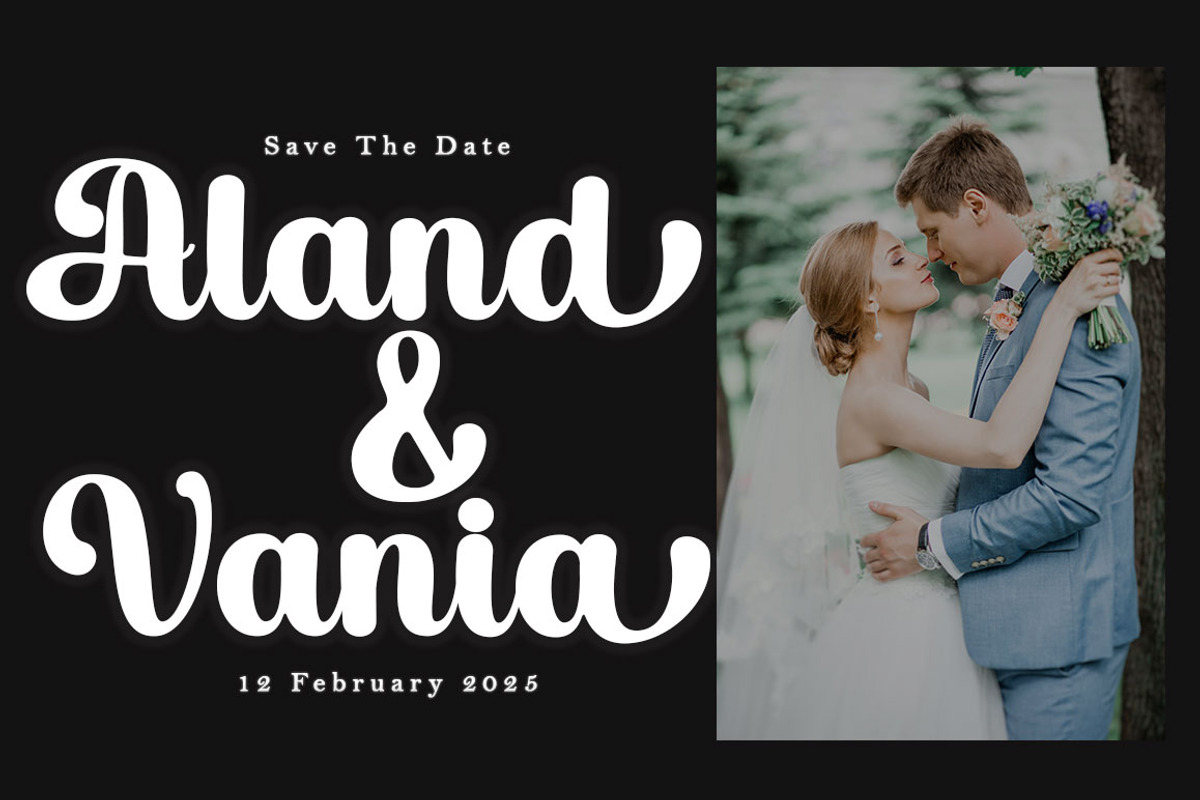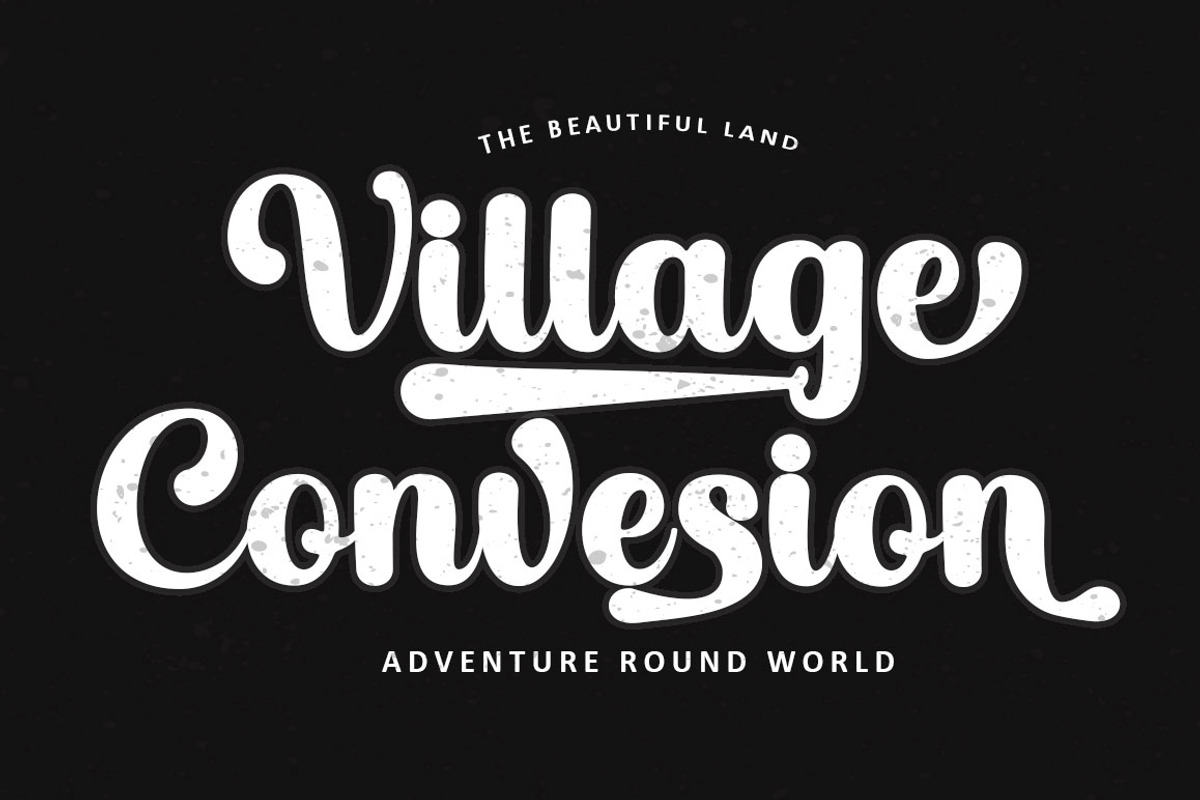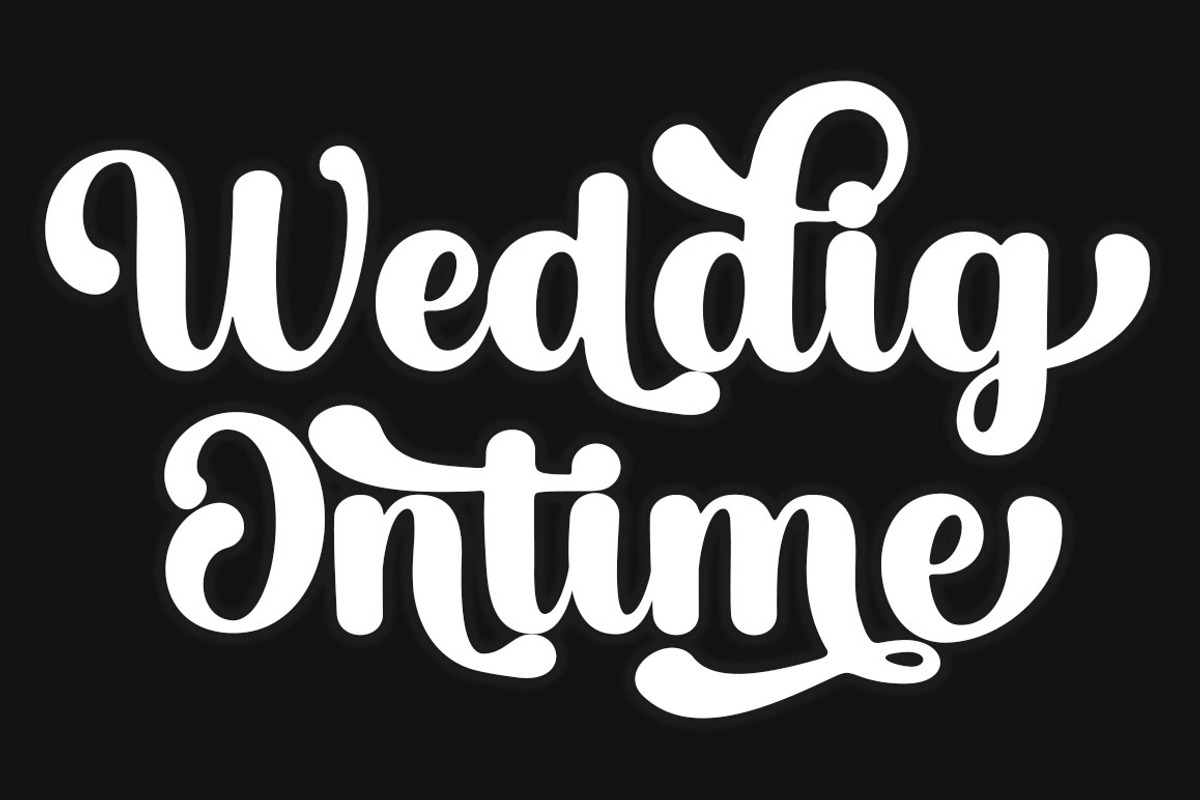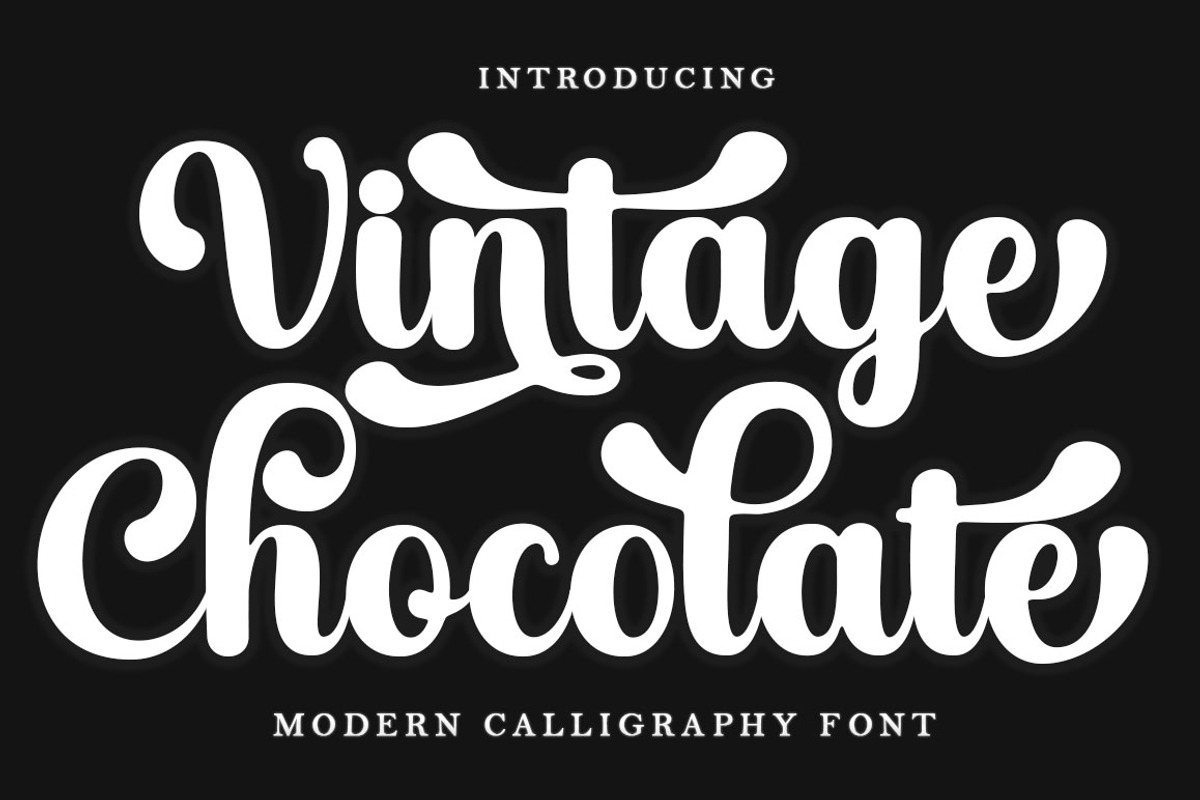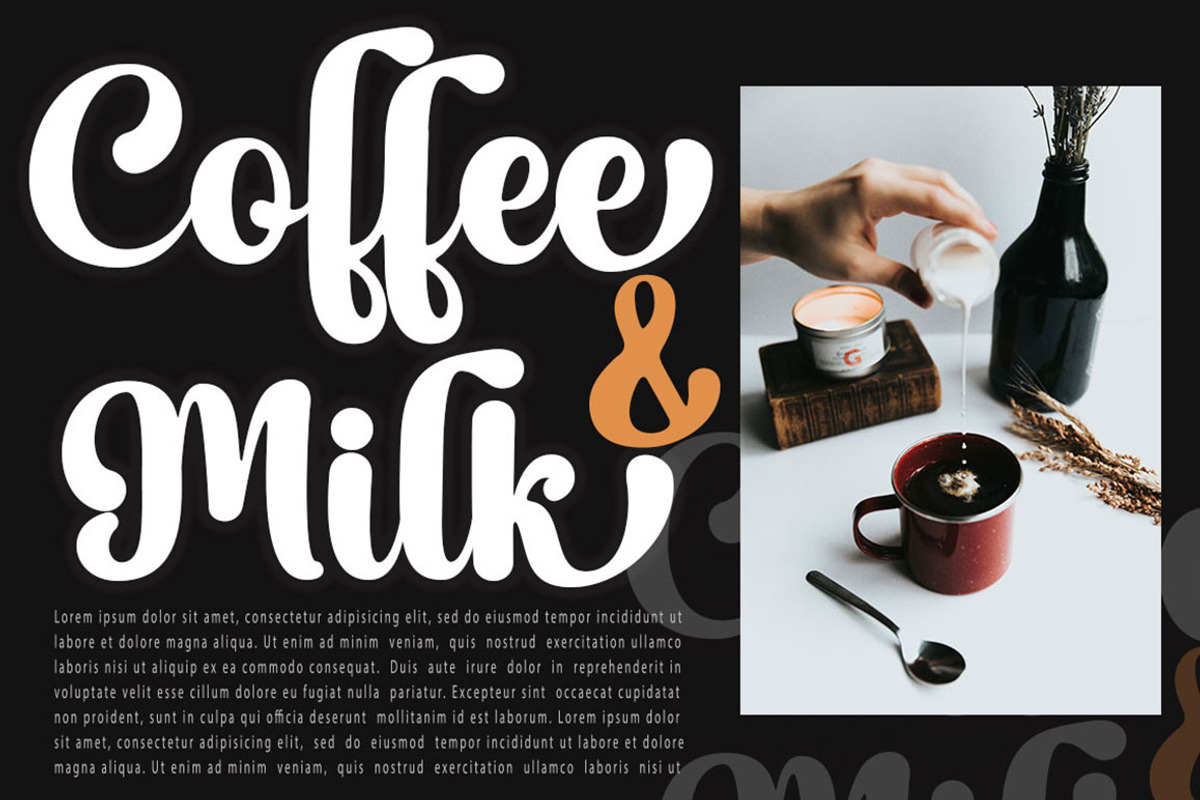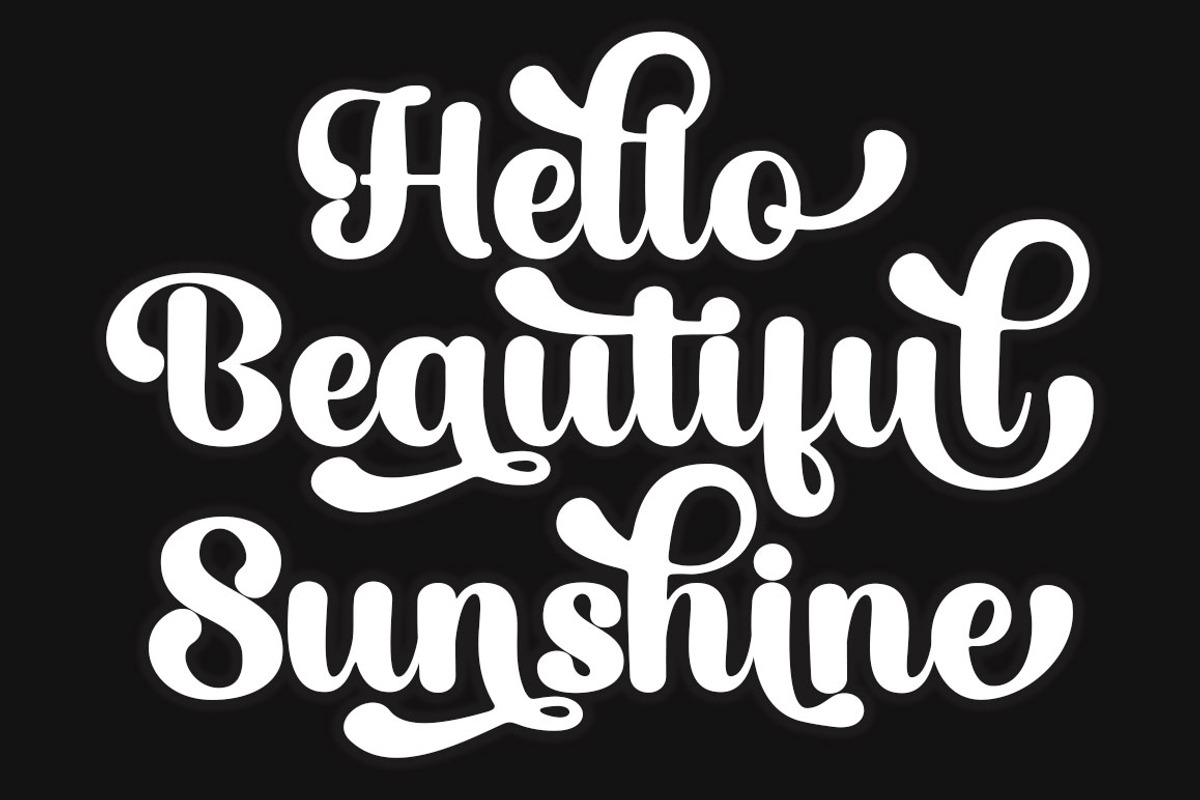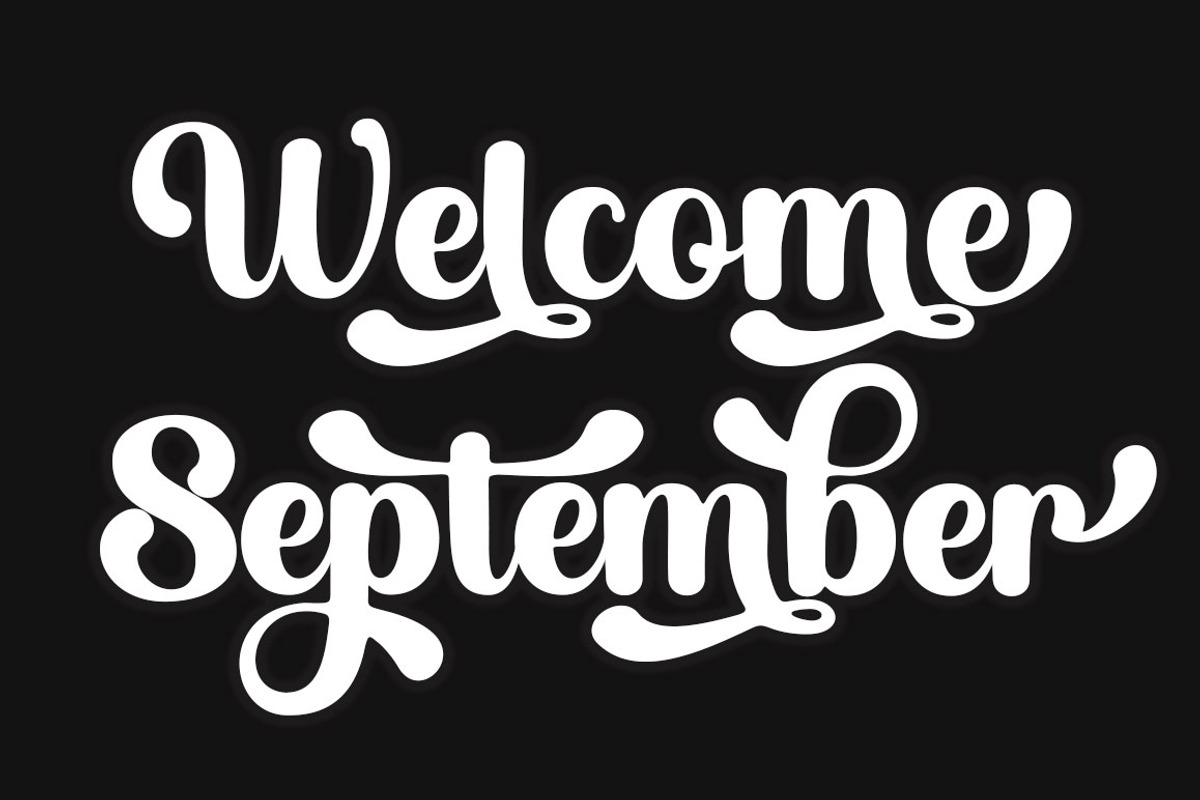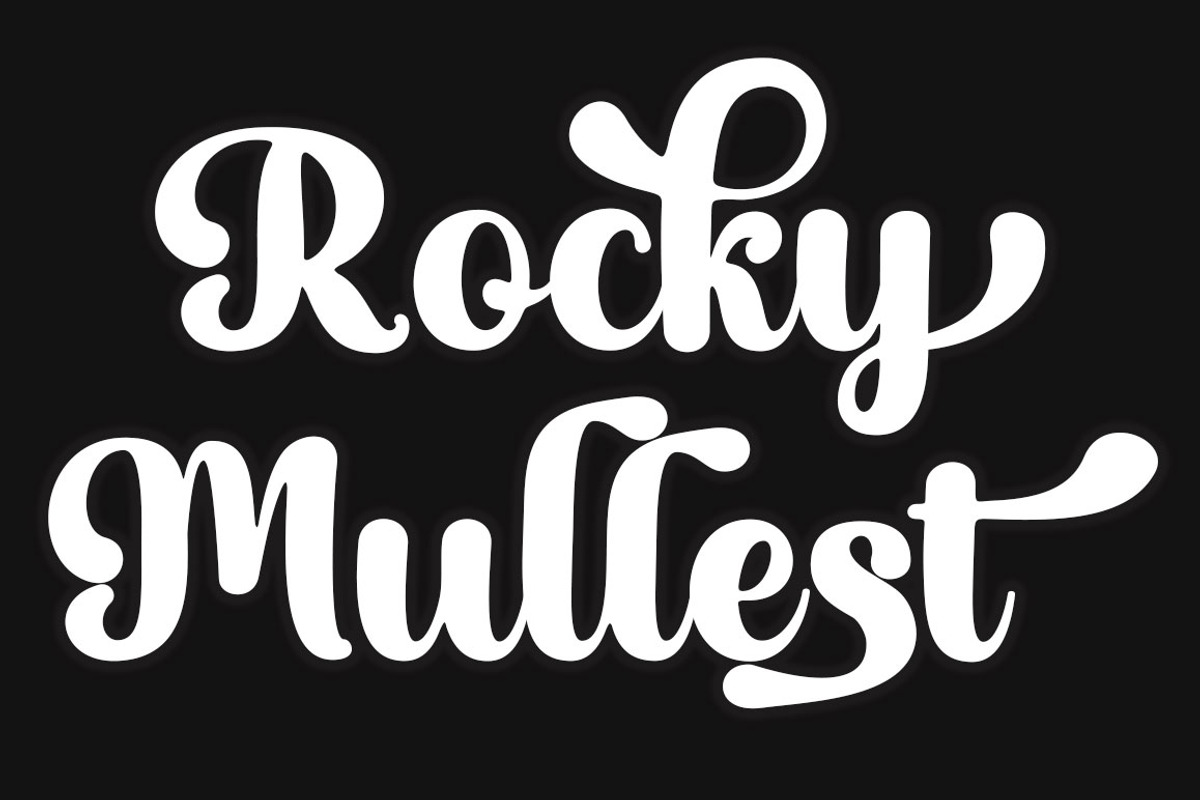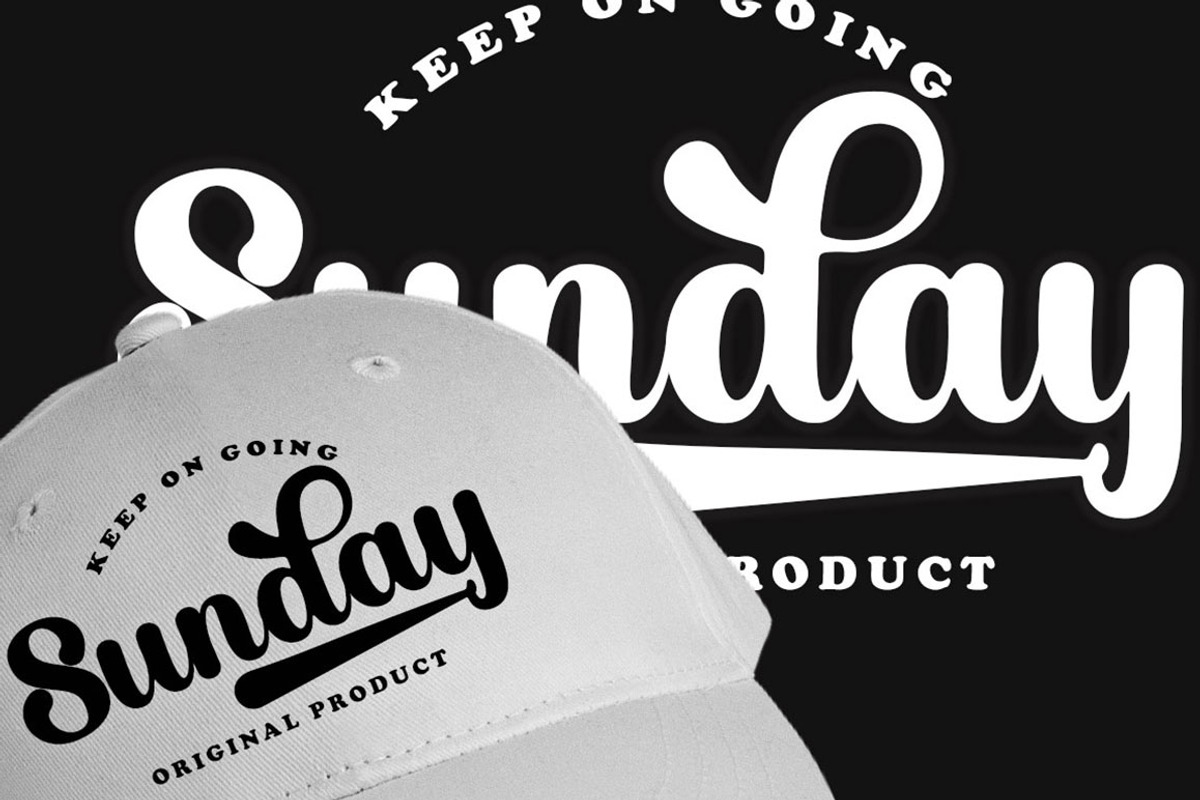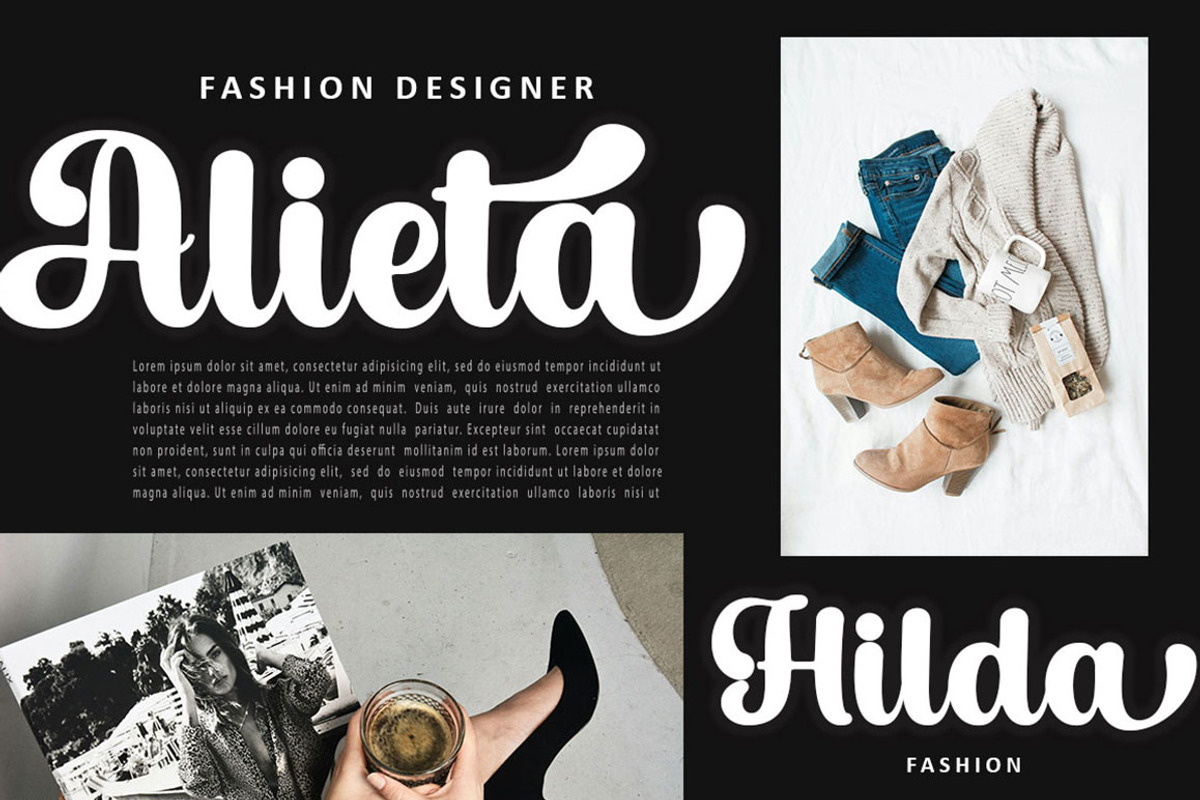
Vintage Chocolate Script
Vintage Chocolate Script is a neat, smooth, modern and classic handwritten wavy calligraphy, created to meet the needs of your design project.
Vintage Chocolate Script can be used for various purposes, such as titles, signatures, logos, correspondence, business cards, quotes, wedding invitations, signs, labels, bulletins, posters, badges, etc.
Vintage Chocolate Script Contains a complete set of lowercase & uppercase letters, punctuation, numbers, and multilingual support, This font also contains several ligatures, style alternatives, and Style Sets, for those of you who have open type, or via a software panel that supports the engine fly .